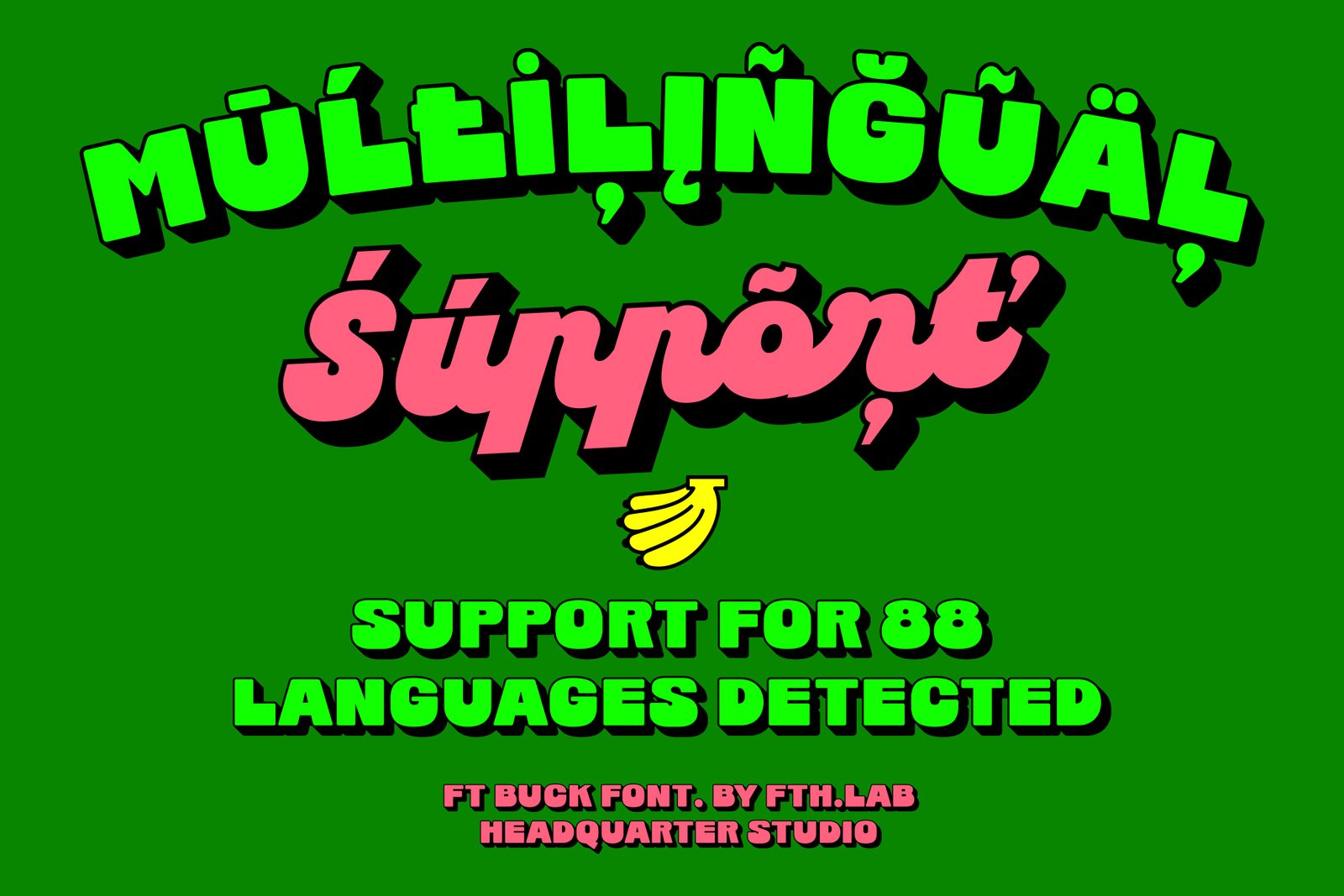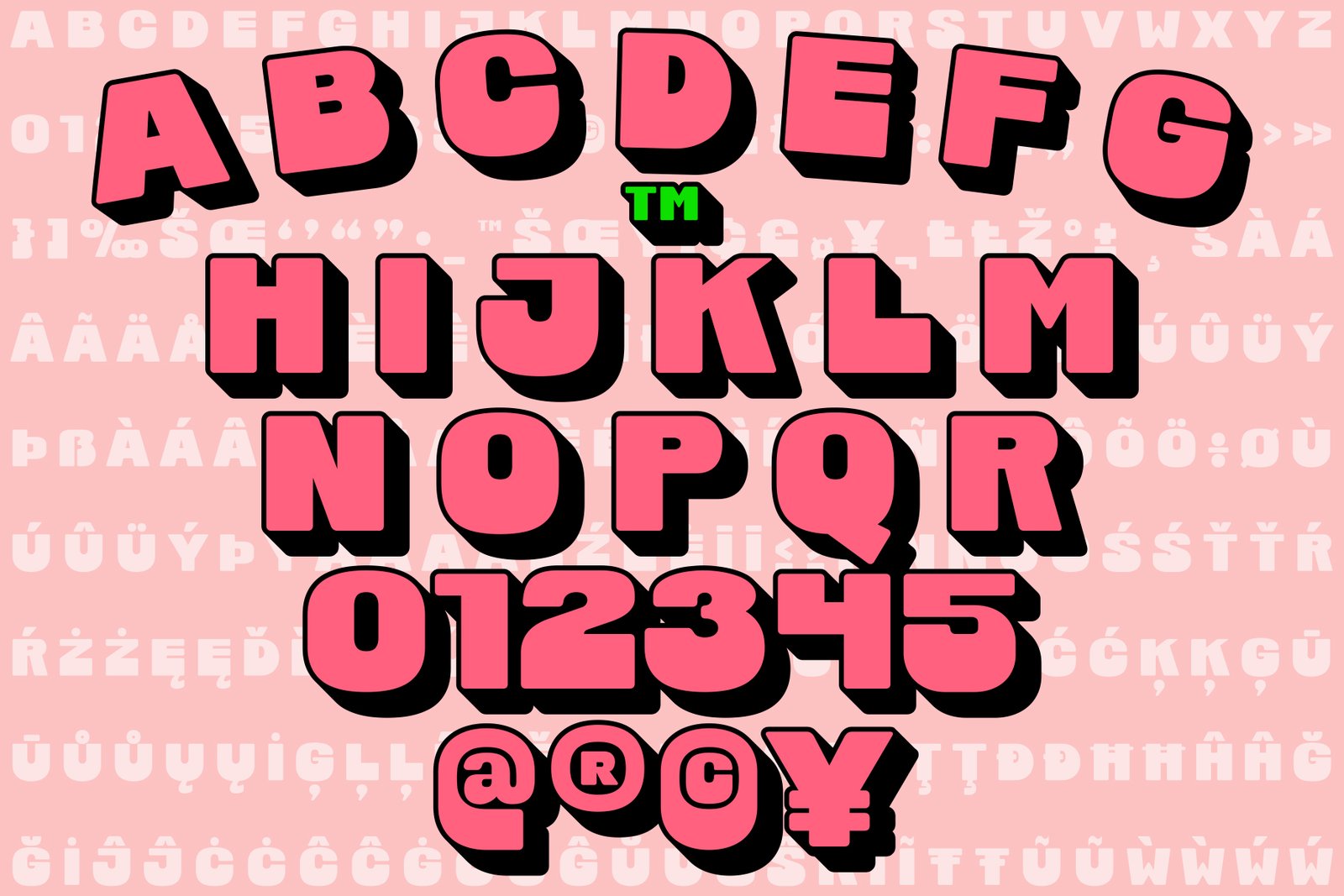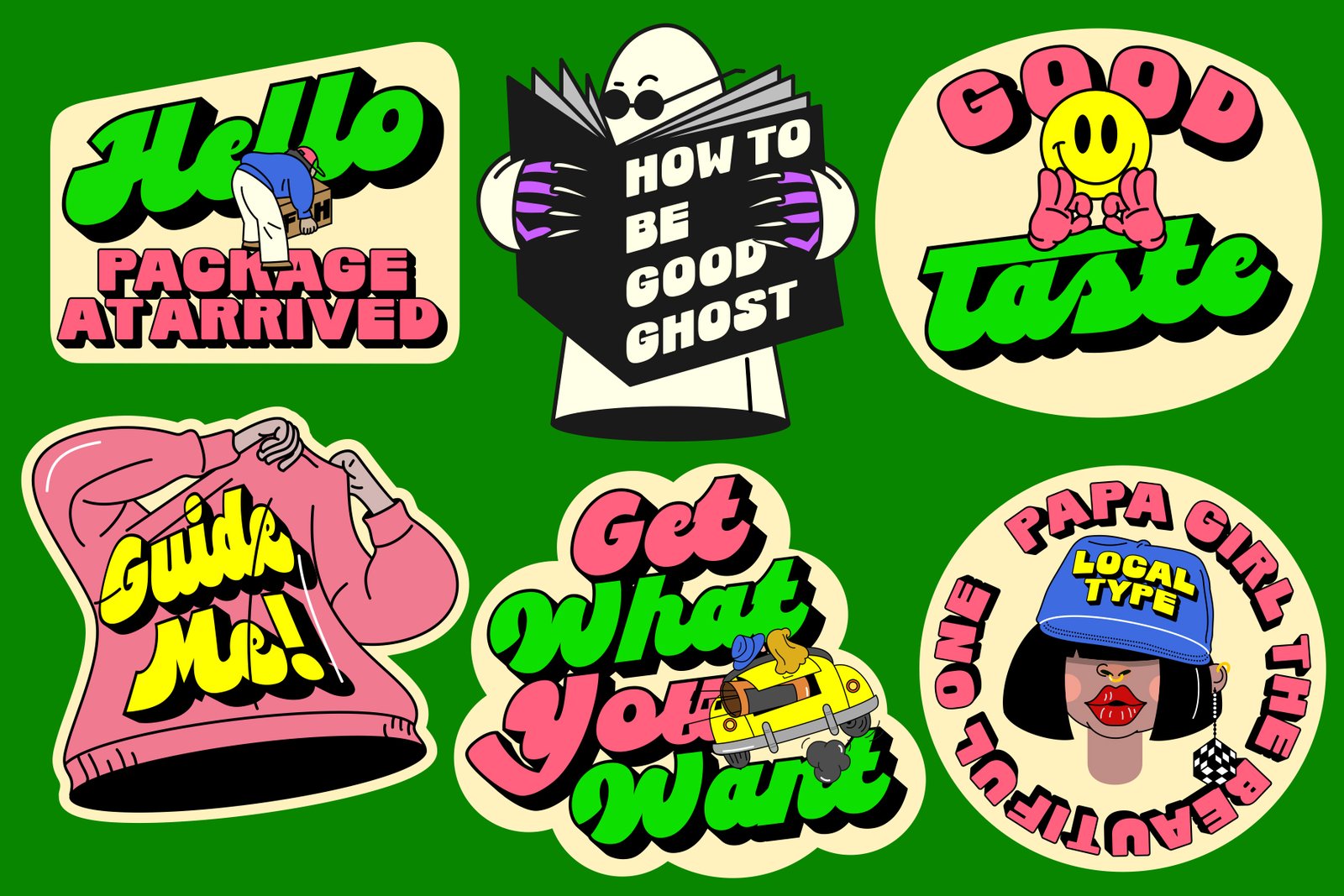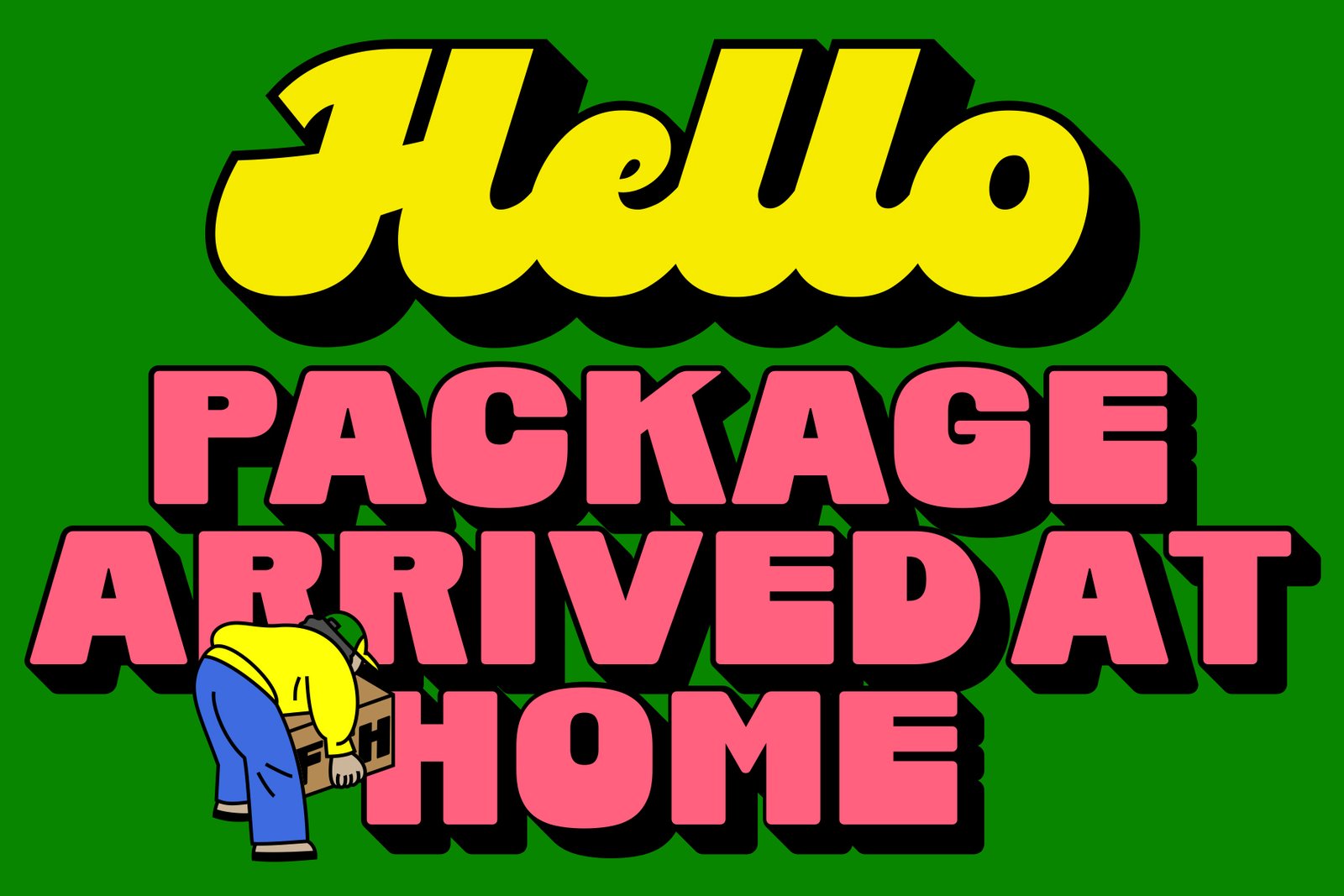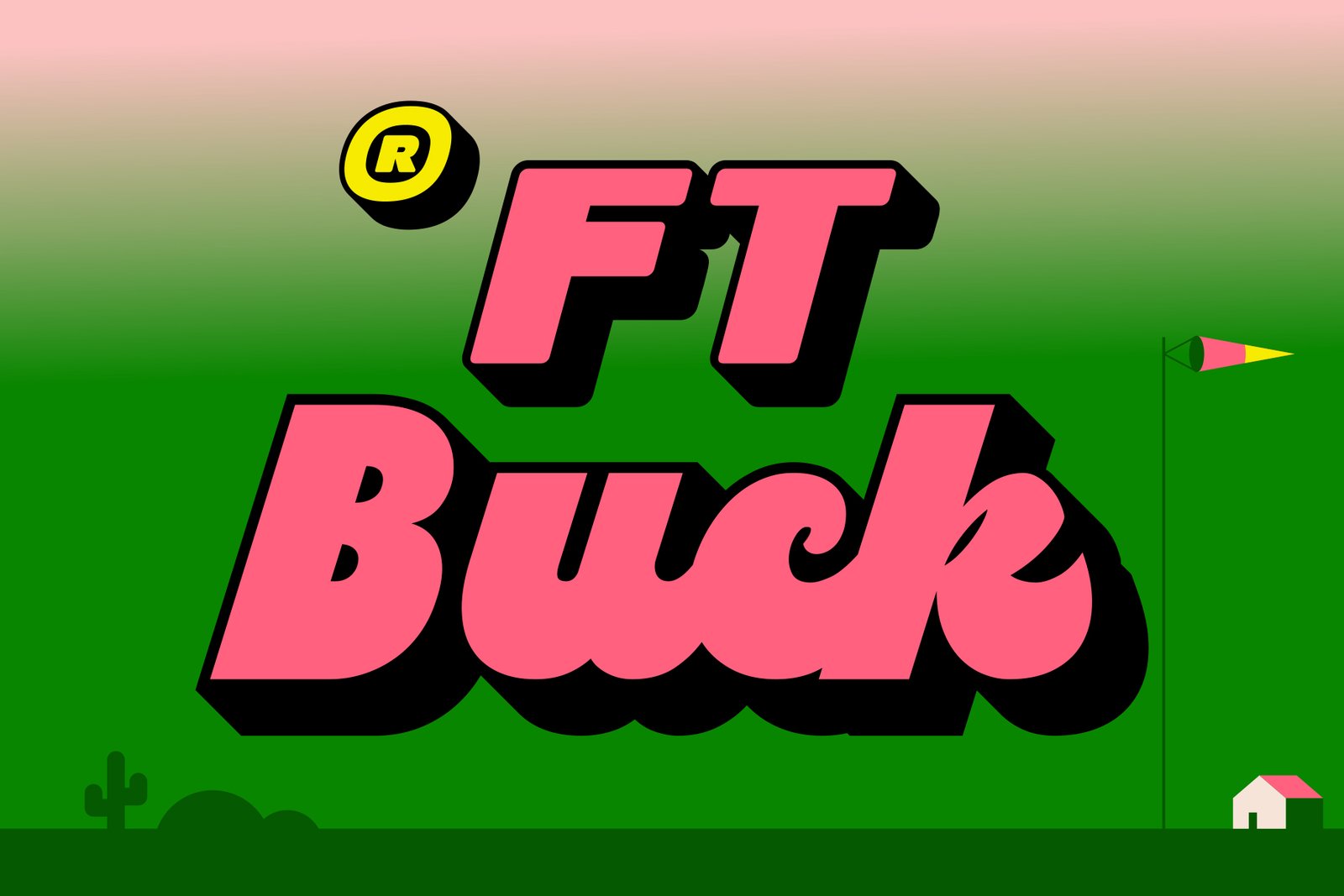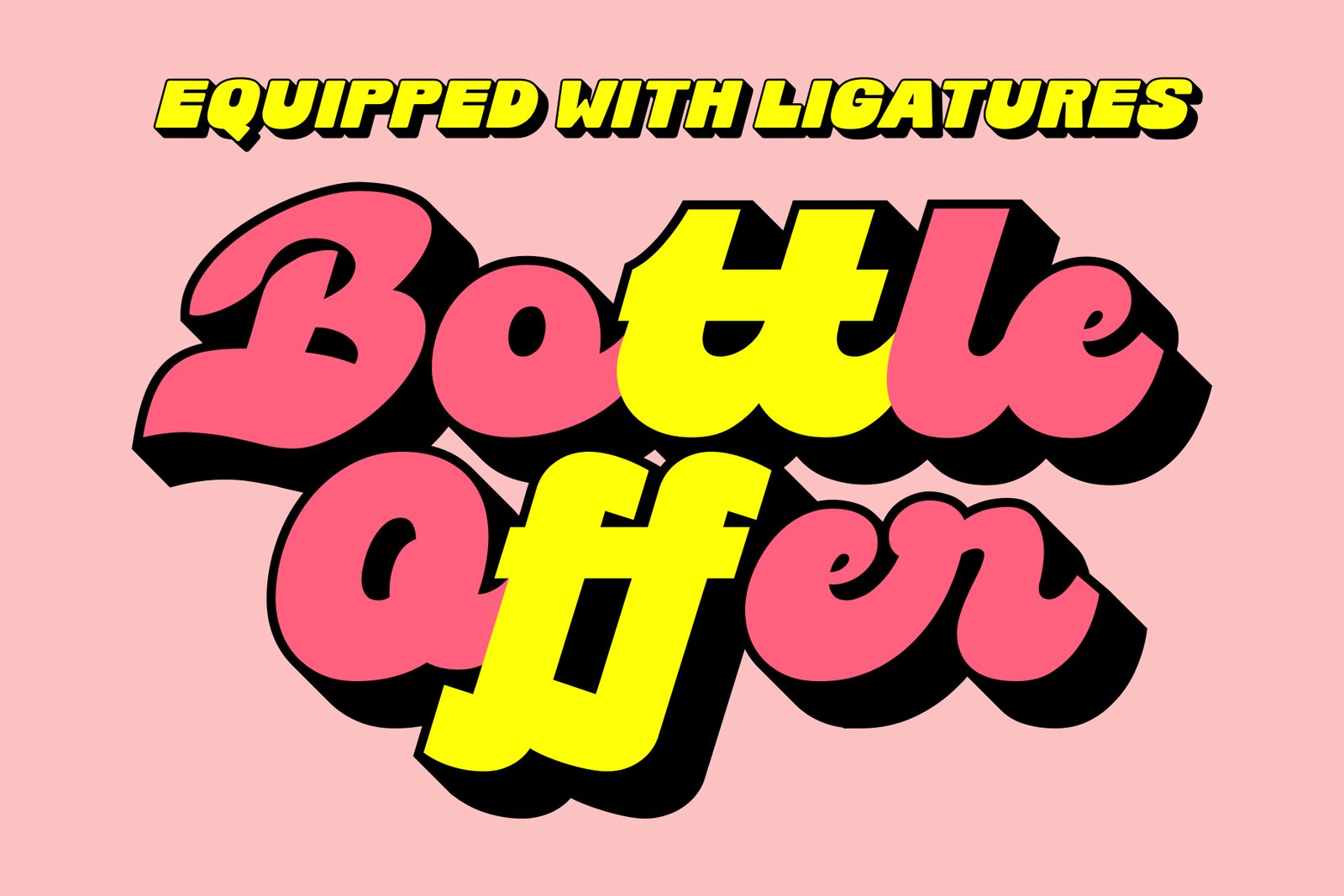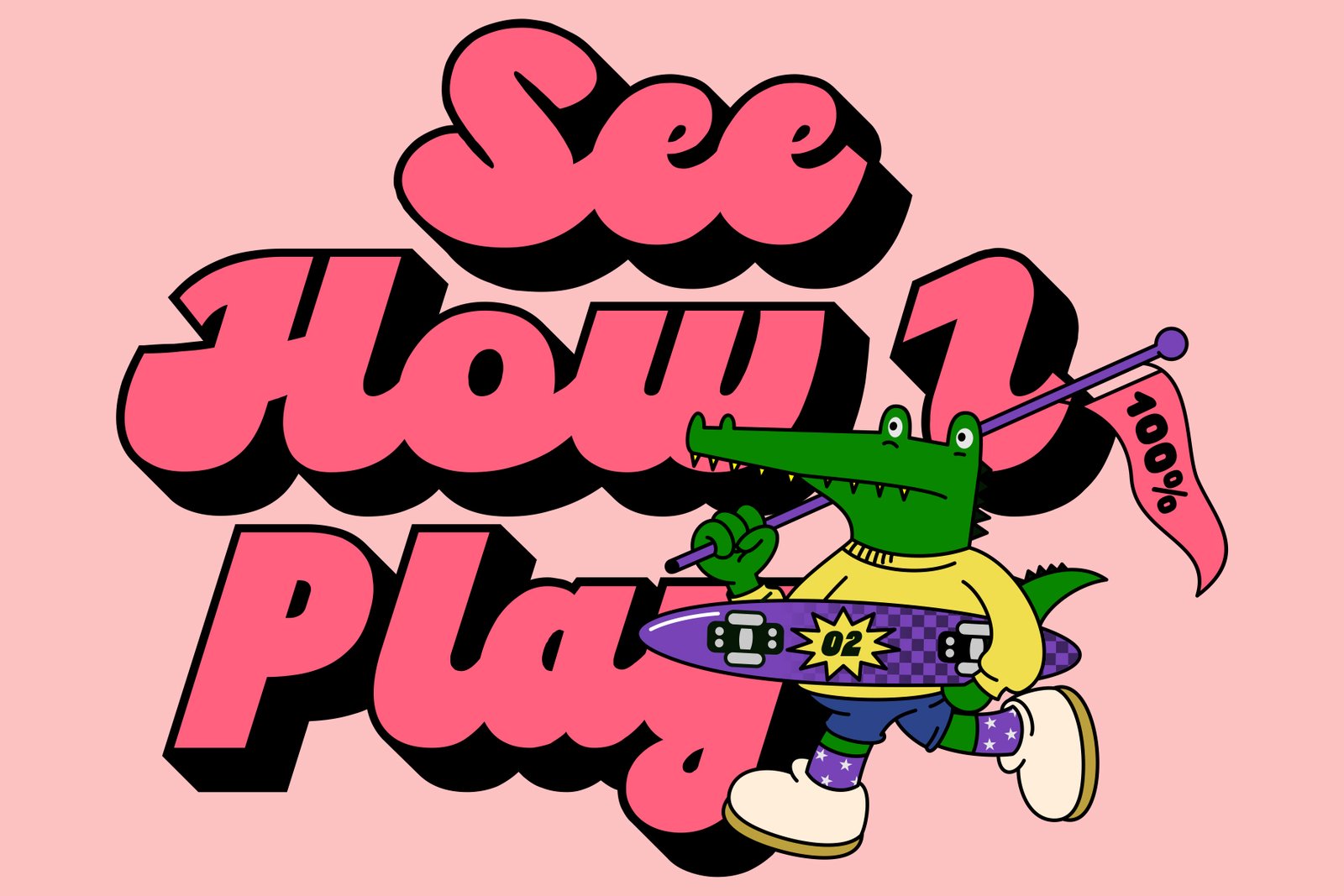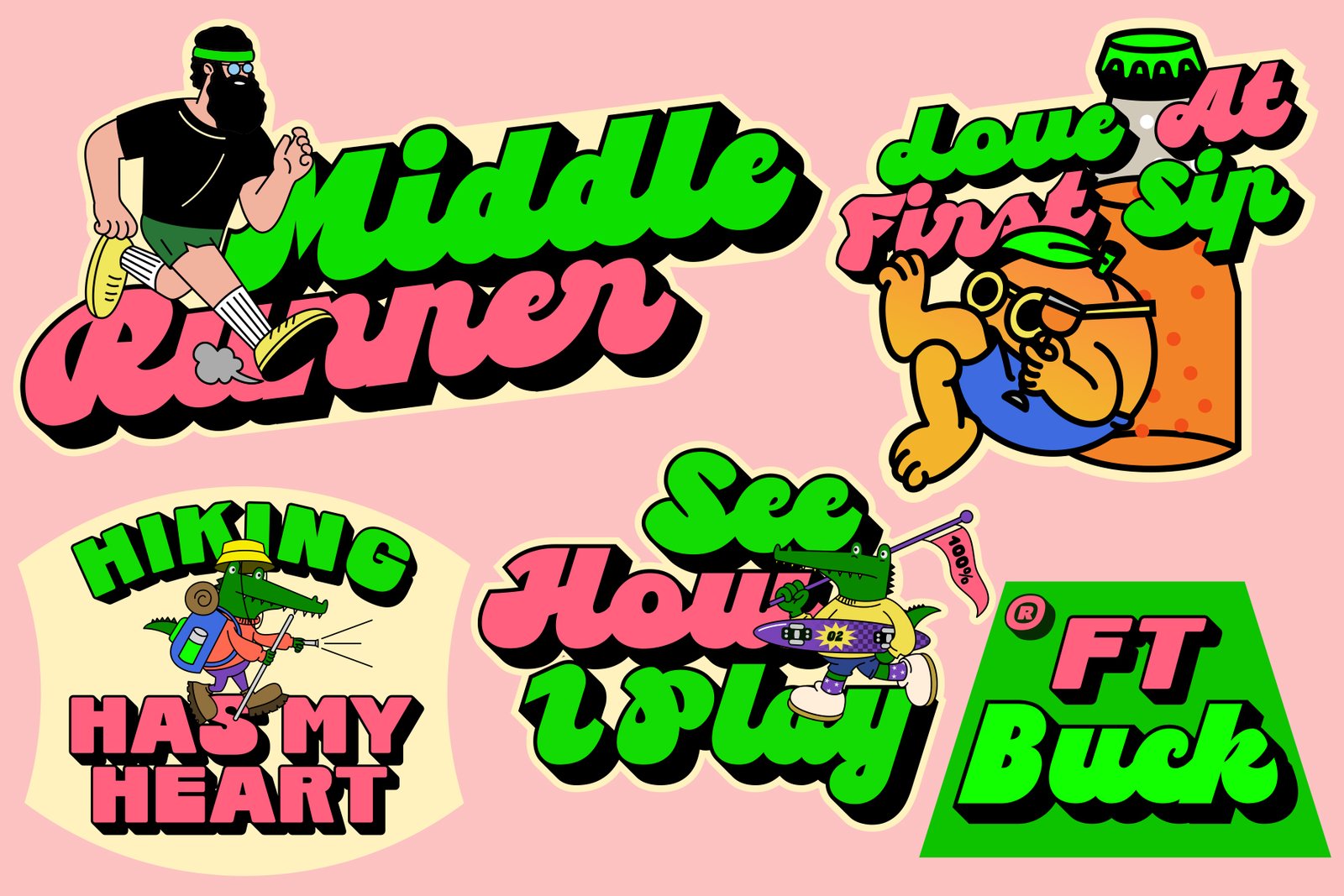
Ft Buck Shadow Font + Free Vector Illustration
Ft Buck is the latest work released from Fateh, Lab! This is a type of shadow font, and it marks the beginning of a shift in current design trends.
With a soft yet bold typographic style, ft buck has all the elements of life in today's design world. With support for three font styles, this is the right answer for those of you who are designing something great.
It has superior weight in posters, social media, news headlines, magazine headlines, clothing, large print formats - and wherever you want to see it.